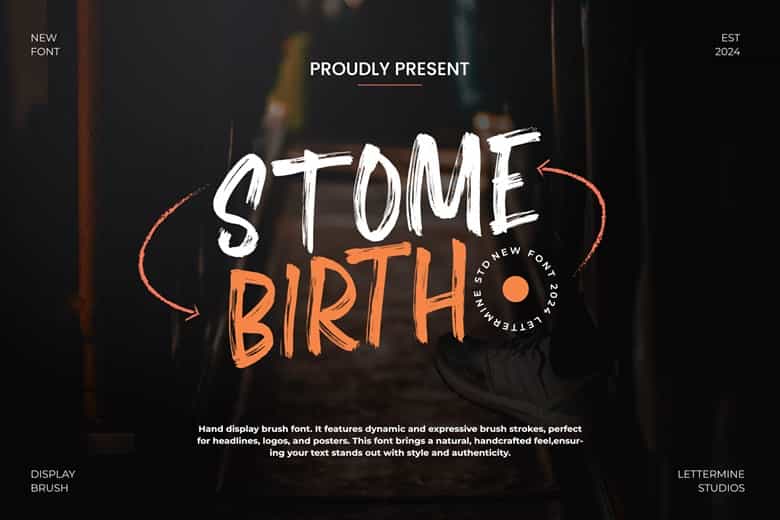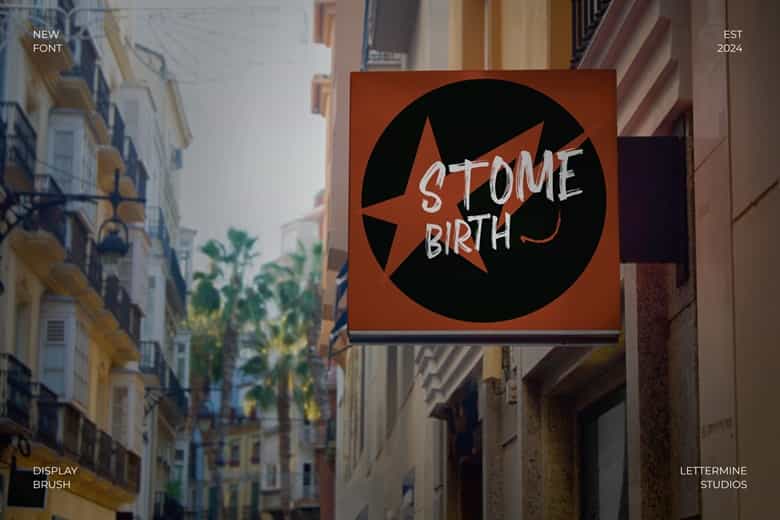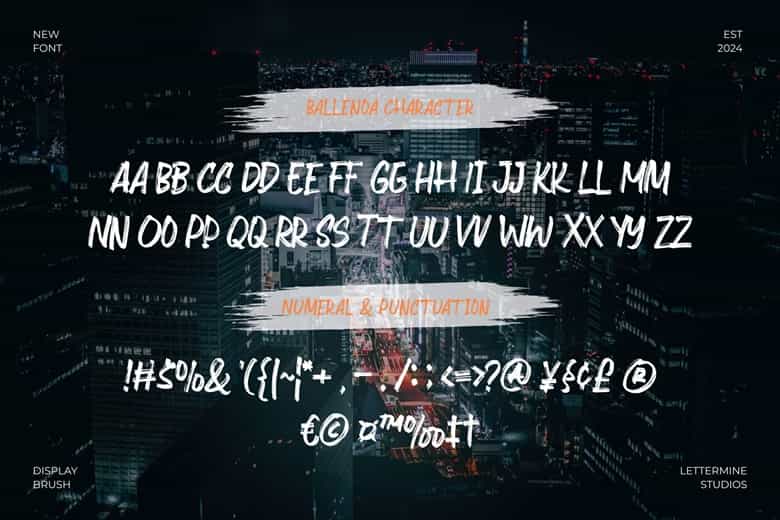
Stome Birth is a new bold and lively brush script font that adds a personal approach to your projects. As a tool, it creates a natural and organic look, which is very useful for giving some personality to a project.